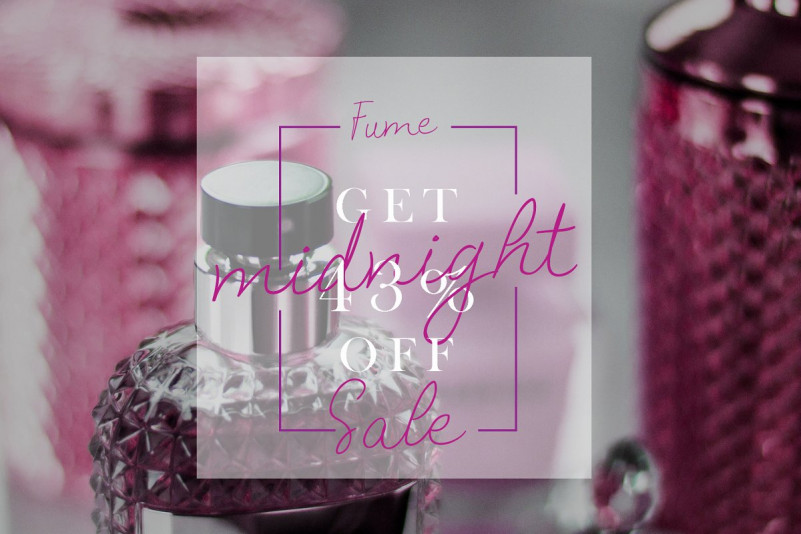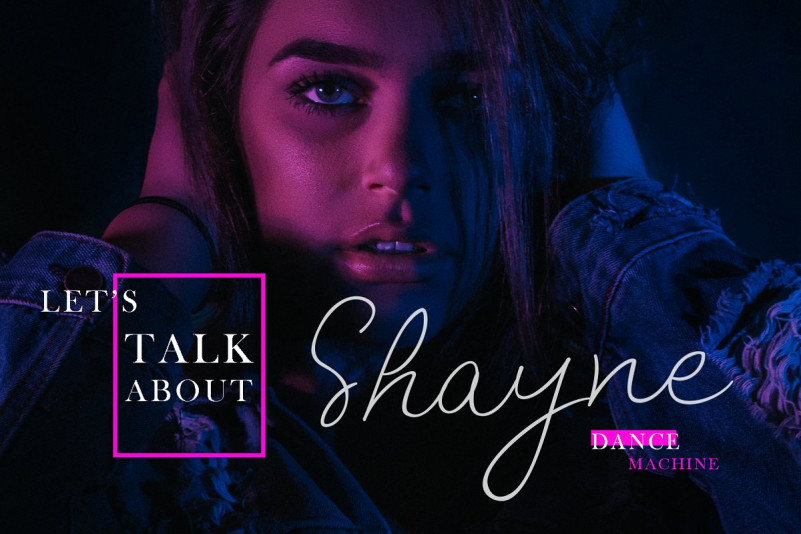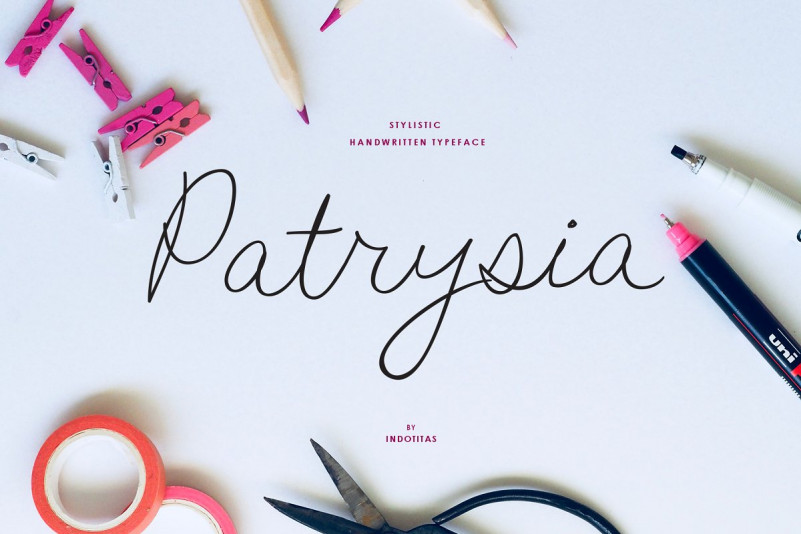
Patrysia Font
Patrysia created with modern stylistic handwritten characters. This stylistic handwritten font was PUA encoded. Patrysia is a simply handwritten style that comes with Extended Latin Characters. Patrysia works perfectly for logos, display, product branding, wedding invitation card, stationary, packaging, clothing, flyer, apparel, magazines, brochures, lable, posters, badges, etc.